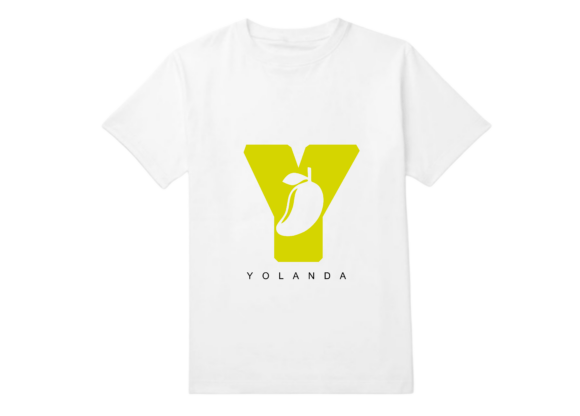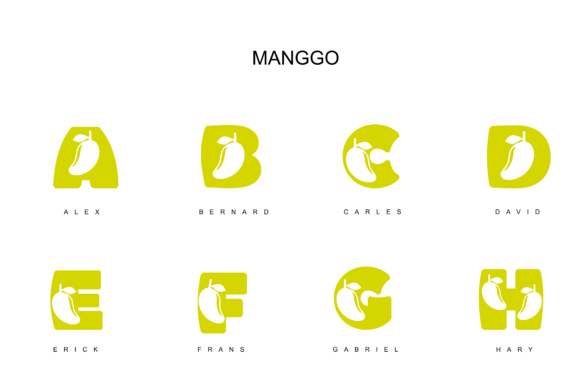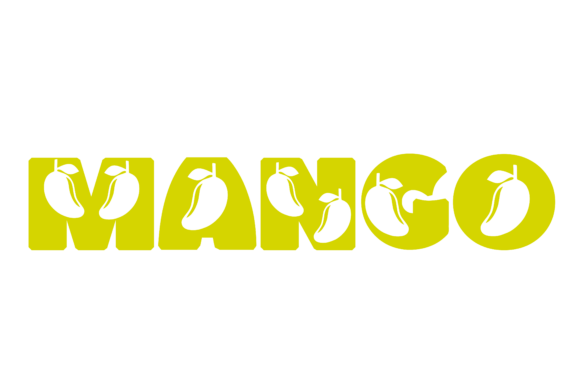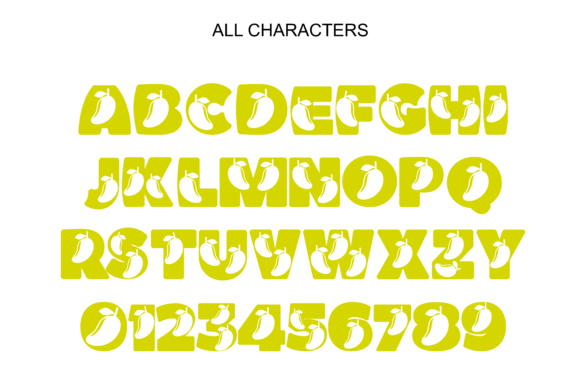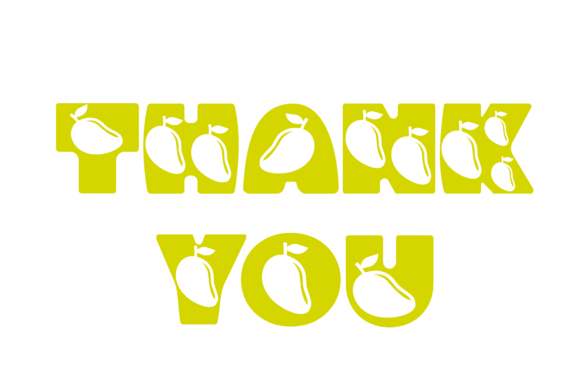
Introduction to Manggo Font
Immerse yourself in the whimsical world of Manggo, a font embodying the essence of childhood imagination and creativity.
Manggo radiates youthful vitality, effortlessly merging whimsical glyphs with lively alphabets, harmoniously orchestrating a captivating symphony of characters Carefully crafted with uncanny precision and a scrupulous attention to detail, Manggo serves as an ideal canvas for a diverse array of artistic pursuits.